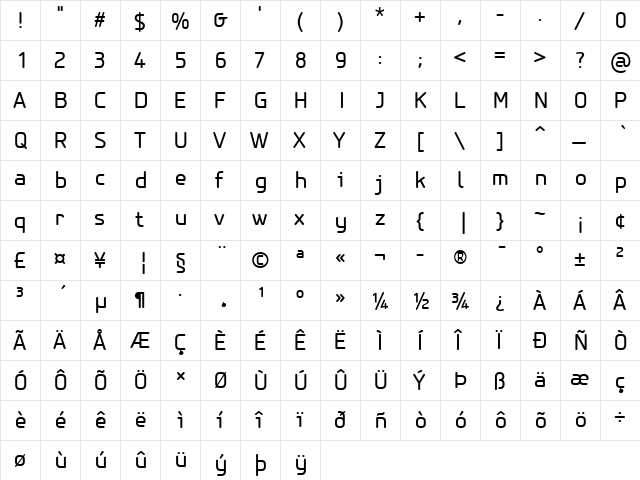
PF Isotext Pro Regular
| Foundry | Parachute蠗orldwide |
| Designer | Panos Vassiliou |
Design Context for PF Isotext Pro Typeface
PF Isotext Pro offers clean, dependable letterforms without strong stylistic allegiance, making it a practical choice for designers who need flexibility.